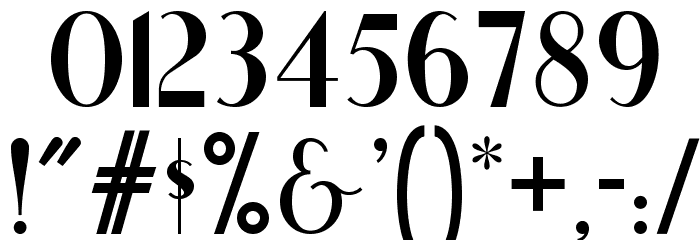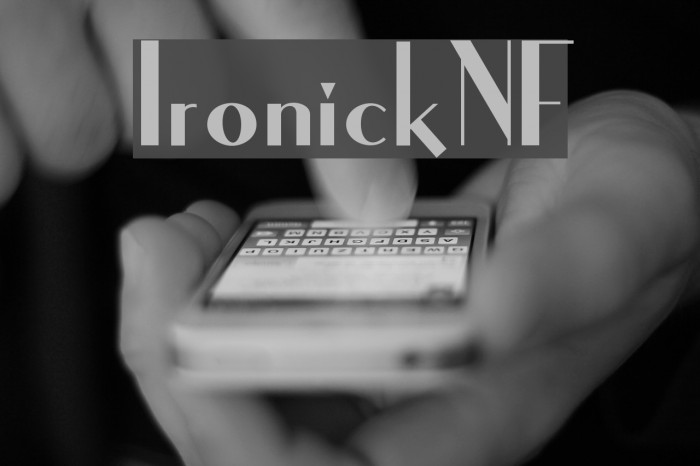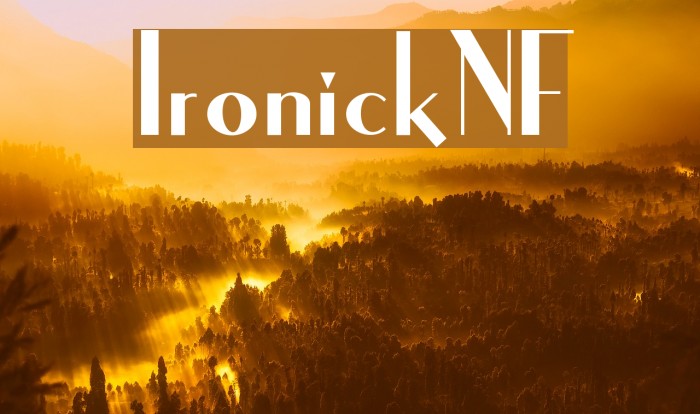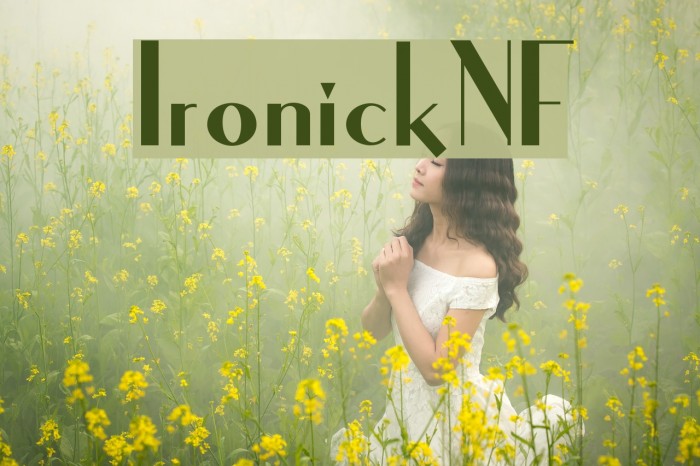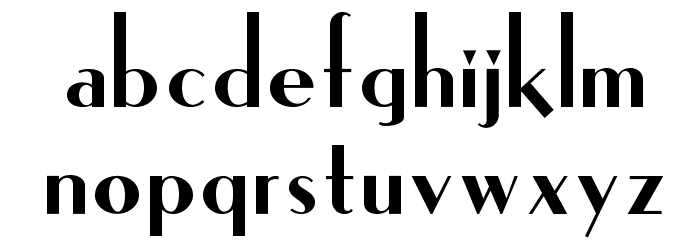
IronickNF Font
IronickNF Description
This font features a unique blend of modern and vintage styles, characterized by its high contrast between thick and thin strokes. The uppercase letters are tall and elegant, with a slight flair that adds a touch of sophistication. The lowercase letters maintain a consistent style, with some characters having distinctive, playful elements. The numerals are bold and clear, ensuring readability. Special characters are creatively designed, adding to the font's overall decorative appeal. This font is ideal for making a statement with its bold presence and artistic flair.
| Overall Style | Modern, Vintage |
| Proposed Projects | Ideal for branding, poster design, headlines, and editorial layouts. |